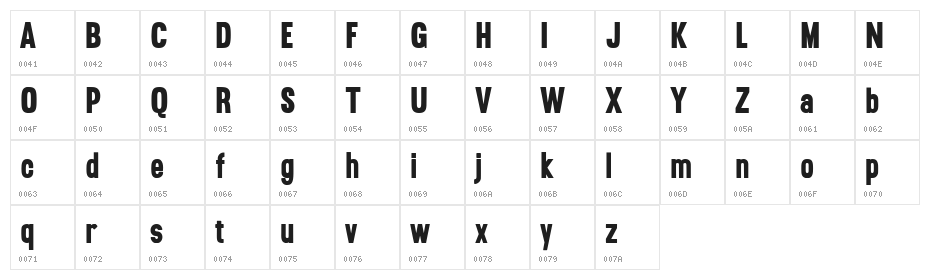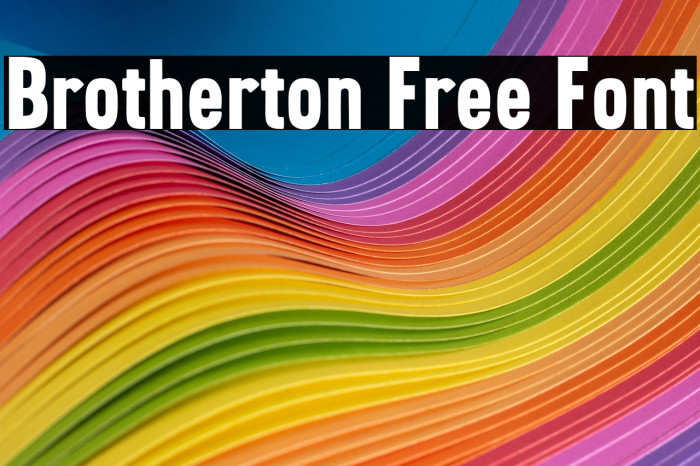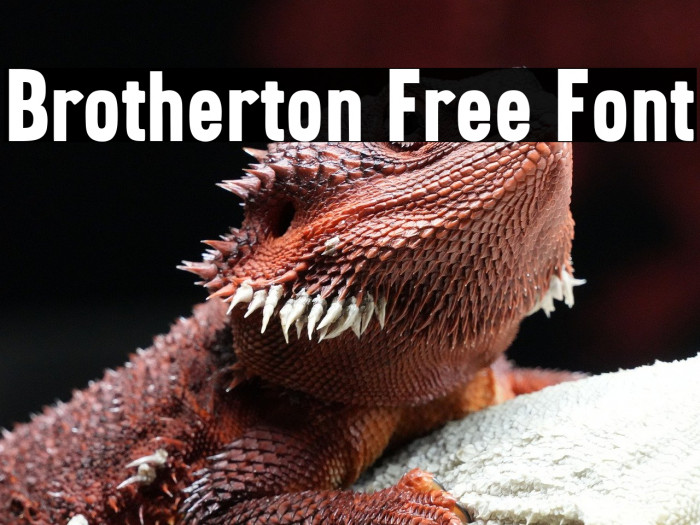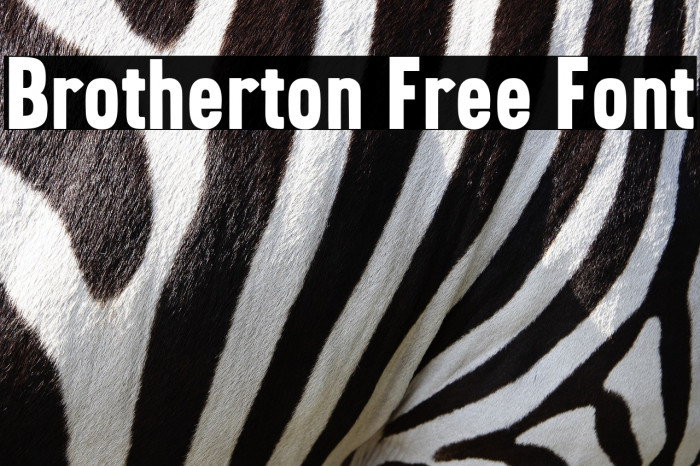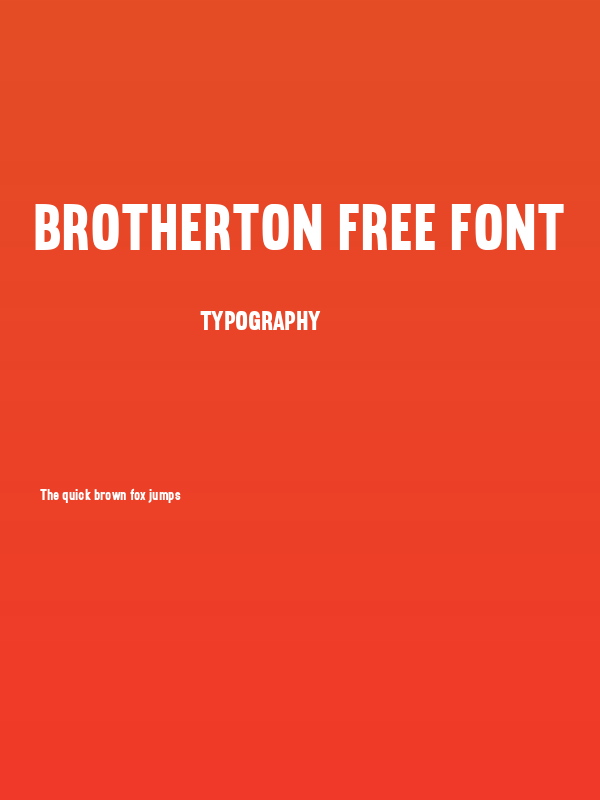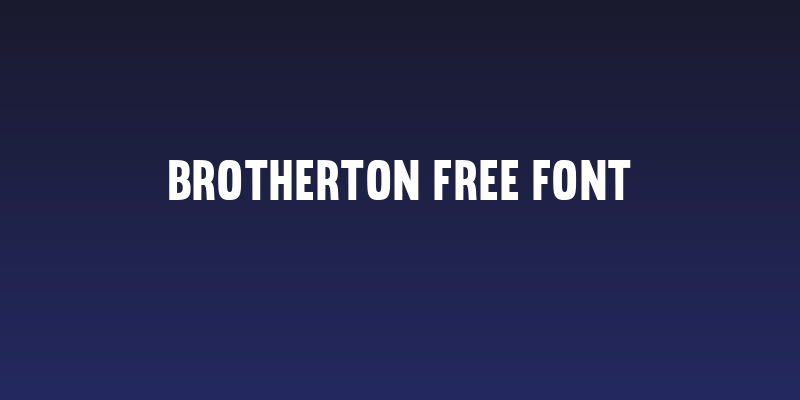
Brotherton Free Font Font
| 推荐项目 | This font is perfect for use in advertising, poster design, branding, and any project requiring bold, attention-grabbing text. |